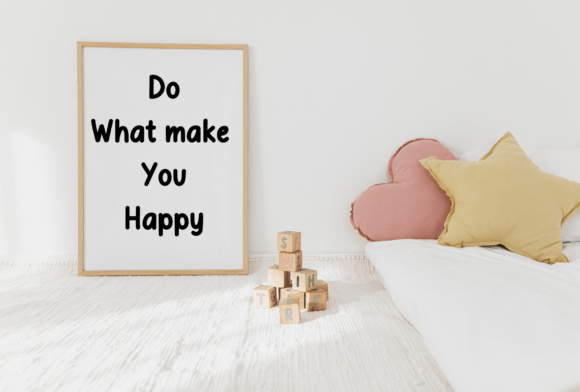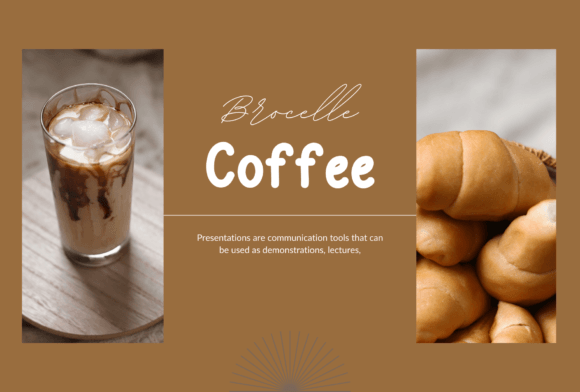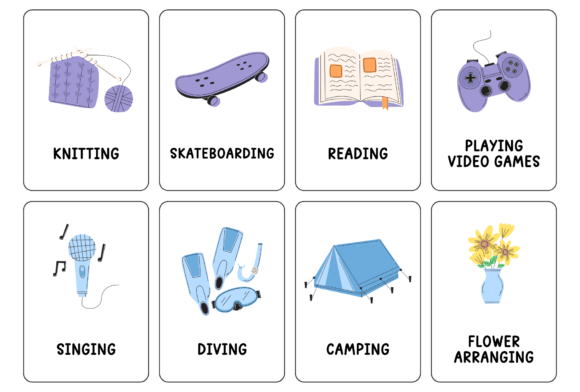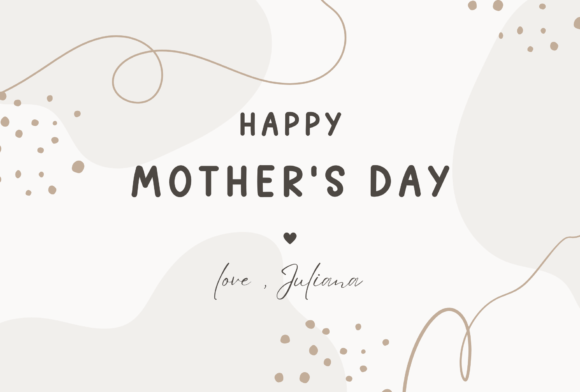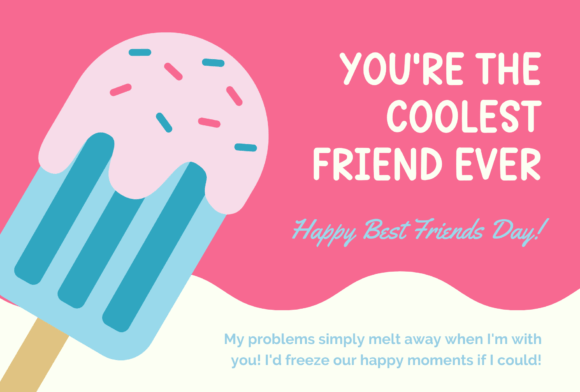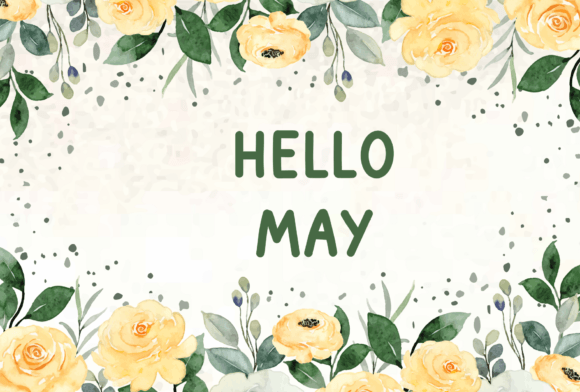
Discover the Charm of Handwritten Fonts: Adding a Personal Touch to Your Designs
Are you looking for a font that can add a personal touch to your designs? Do you want to create a sense of warmth and friendliness in your projects? Look no further than handwritten fonts, specifically the lovely Handwritten font. In this article, we’ll explore the world of handwritten fonts, their benefits, and how you can use them to take your designs to the next level.
What is a Handwritten Font?
A handwritten font is a type of font that mimics the natural, flowing style of handwriting. It’s characterized by its unique, irregular strokes, and subtle variations in line width and spacing. Handwritten fonts can range from simple and elegant to bold and playful, making them suitable for a wide range of design projects.
Introducing Handwritten: A Sweet and Friendly Font
Handwritten is a beautiful, sweet, and friendly handwritten font that’s perfect for designers and crafters looking to add a personal touch to their projects. Its natural and unique style makes it incredibly fitting to a large pool of designs, from invitations and greeting cards to branding and packaging. The only limit is your imagination!
Benefits of Using Handwritten Fonts
Handwritten fonts offer several benefits that make them a popular choice among designers. Here are a few:
- Uniqueness: Handwritten fonts are one-of-a-kind, just like the person who wrote them. They add a touch of personality to your designs that’s hard to replicate with generic fonts.
- Emotional Connection: Handwritten fonts can evoke emotions and create a sense of connection with your audience. They’re often associated with nostalgia, warmth, and friendliness.
- Versatility: Handwritten fonts can be used in a variety of design projects, from digital to print, and can be adapted to suit different styles and themes.
- Creativity: Handwritten fonts offer endless creative possibilities. You can experiment with different colors, textures, and embellishments to make your designs truly unique.
How to Use Handwritten Fonts in Your Designs
Now that we’ve explored the benefits of handwritten fonts, let’s dive into some practical tips on how to use them in your designs:
- Pair with Other Fonts: Combine handwritten fonts with other fonts to create visual interest and hierarchy. For example, pair Handwritten with a clean sans-serif font for a beautiful contrast.
- Experiment with Colors: Handwritten fonts look great in a range of colors, from bold and bright to soft and pastel. Experiment with different colors to find the perfect match for your design.
- Add Texture and Embellishments: Add texture and embellishments to your handwritten font to give it an extra layer of personality. You can use digital textures, illustrations, or even scanned images to achieve this effect.
- Use for Headlines and Titles: Handwritten fonts are perfect for headlines and titles, where you want to make a statement and grab attention.
In conclusion, handwritten fonts like Handwritten offer a unique and creative way to add a personal touch to your designs. With their natural, flowing style and endless creative possibilities, they’re perfect for designers and crafters looking to create something special. Whether you’re designing invitations, branding, or packaging, handwritten fonts are sure to make your projects stand out. So why not give Handwritten a try and see the magic for yourself?
Handwritten is a sweet and friendly handwritten font that’s waiting to be explored. Its natural and unique style makes it incredibly fitting to a large pool of designs. The only limit is your imagination!